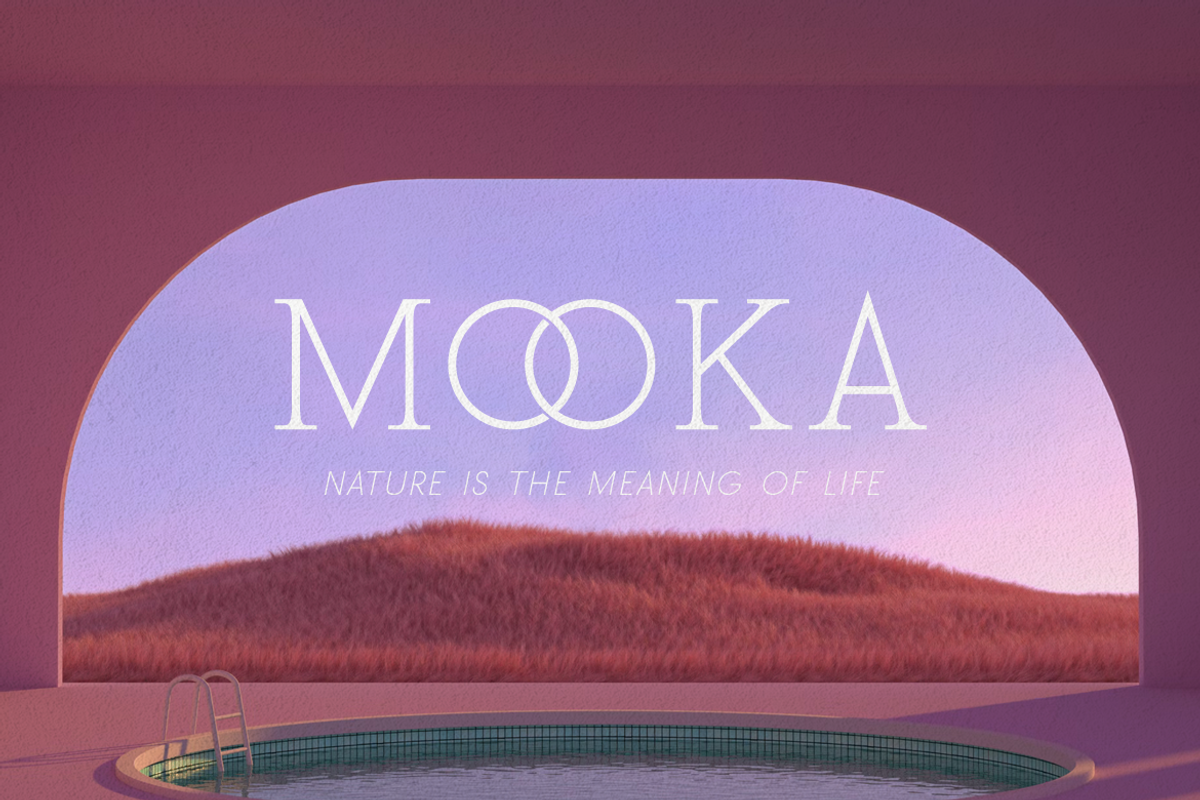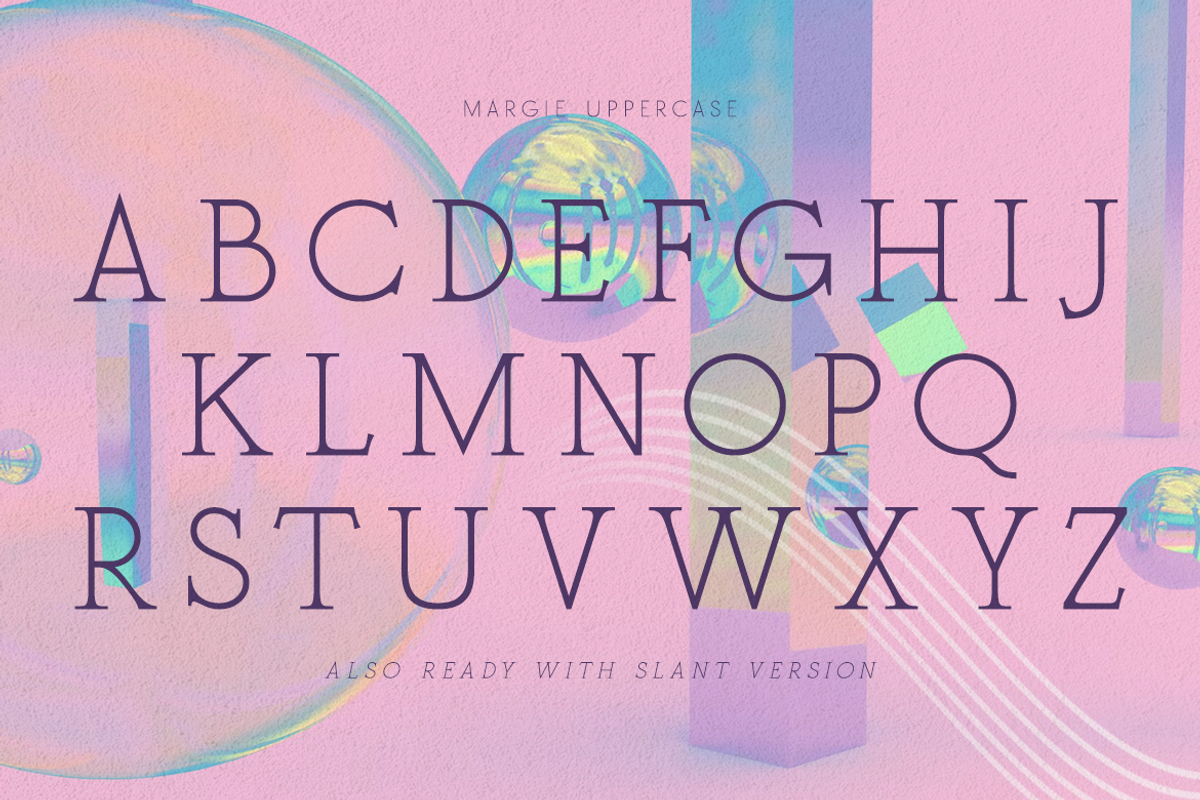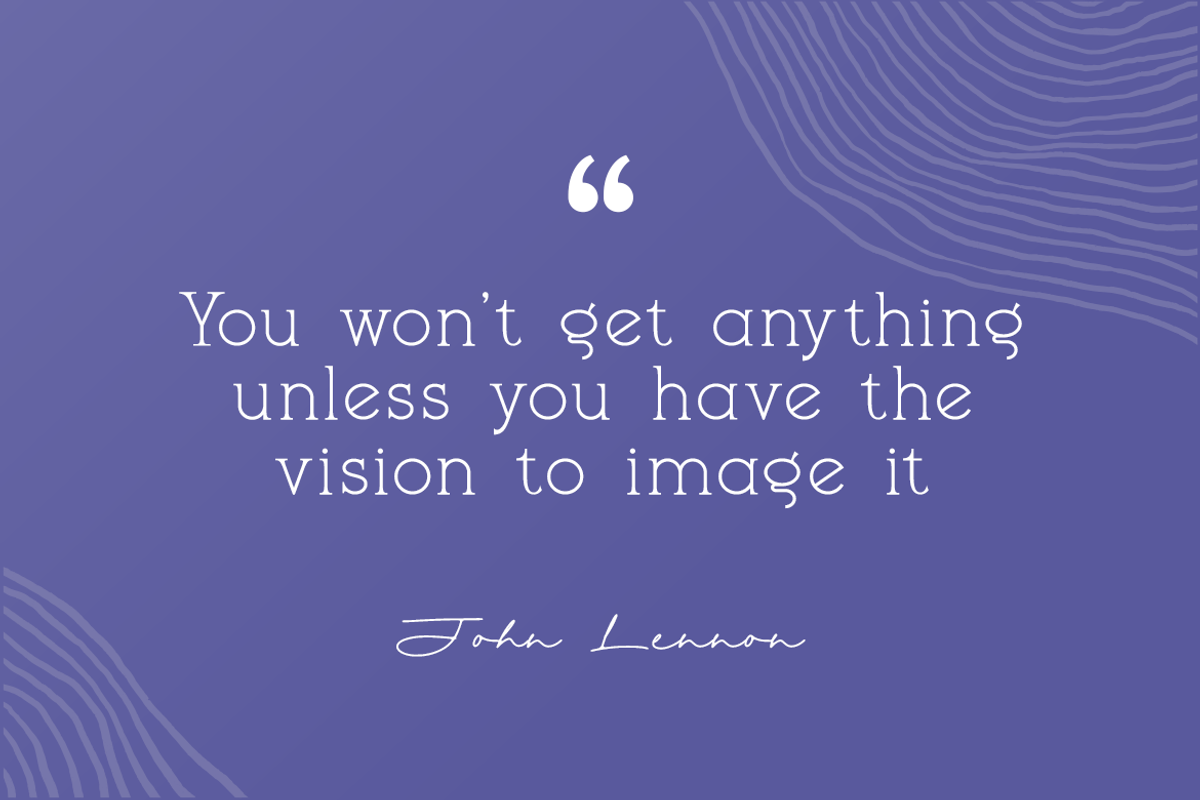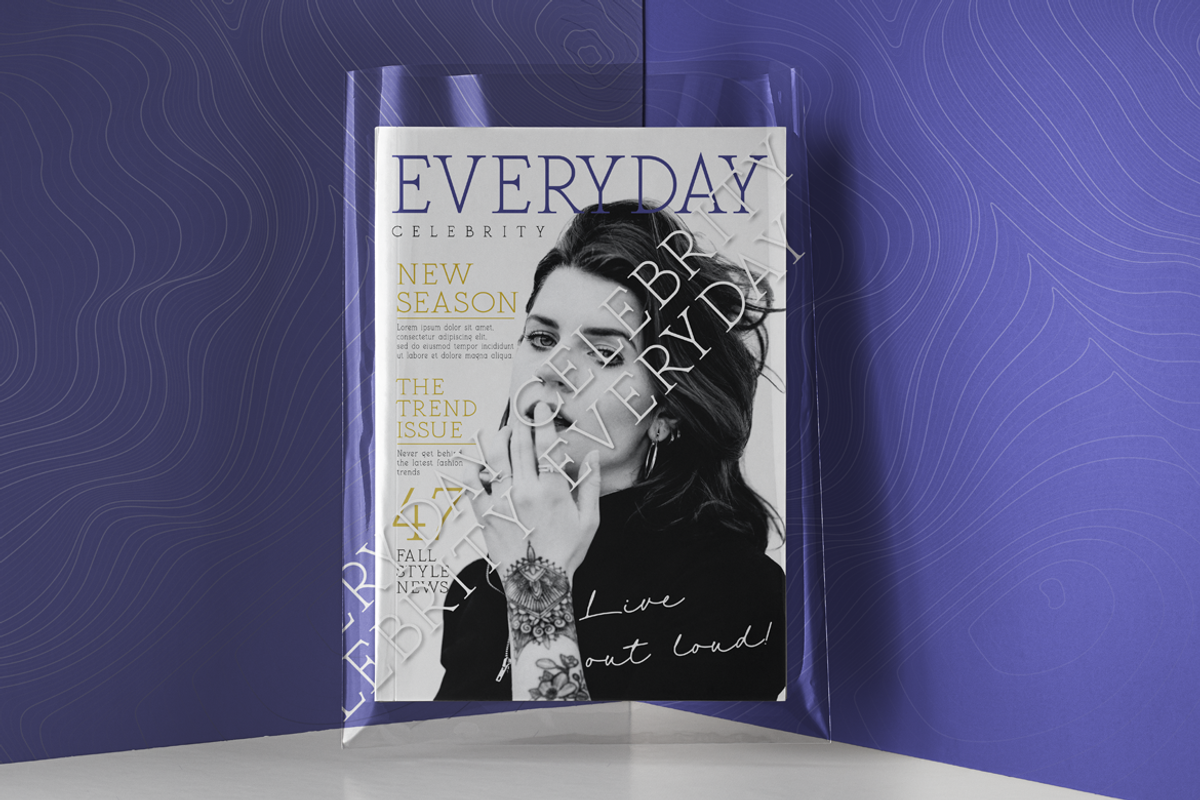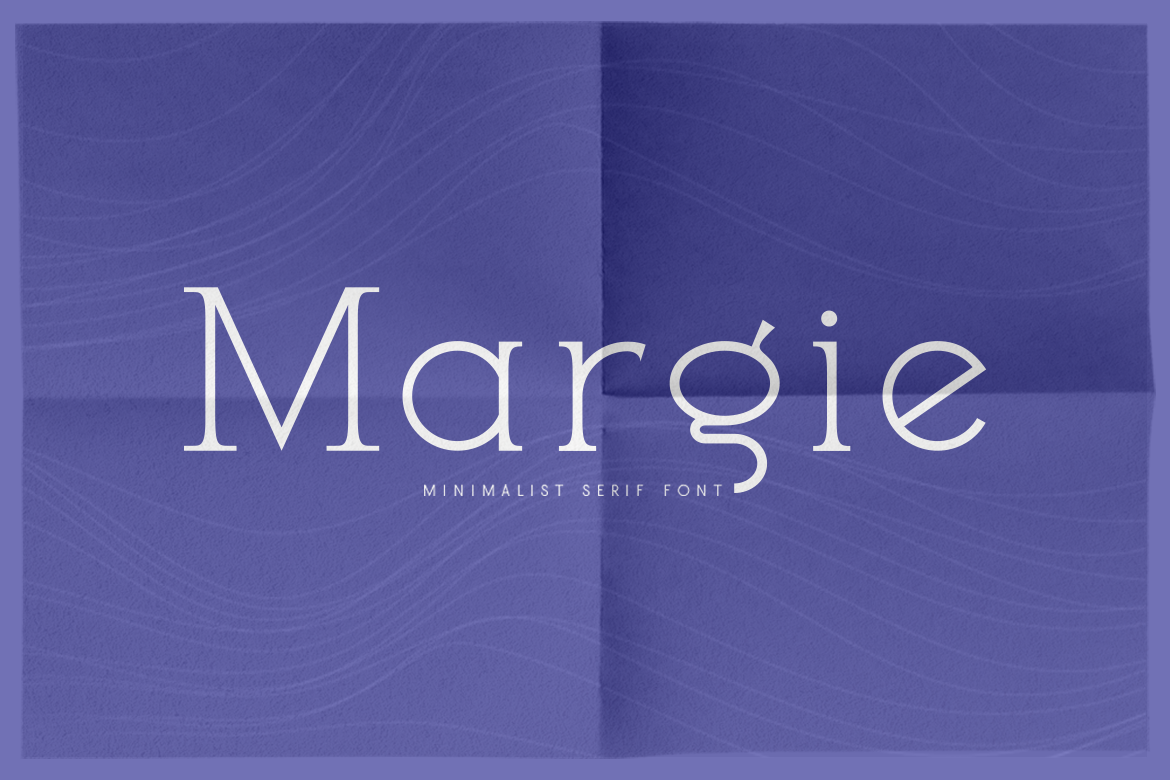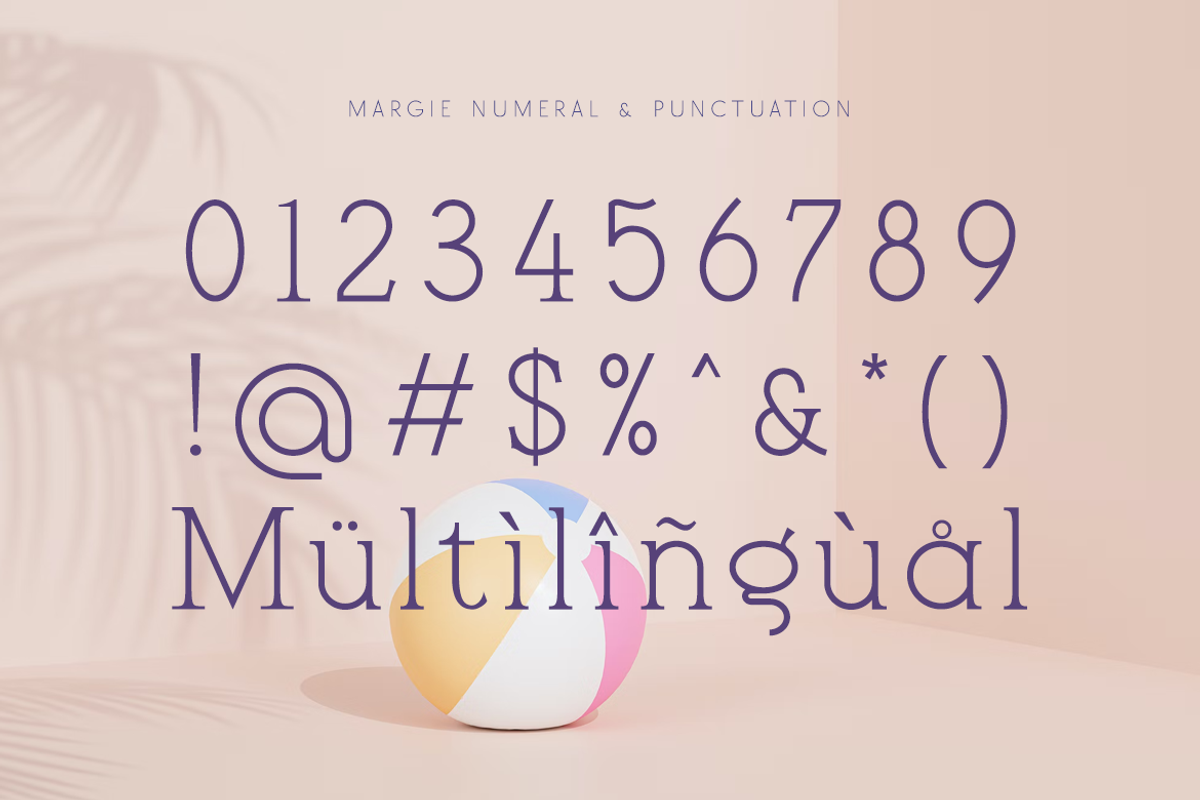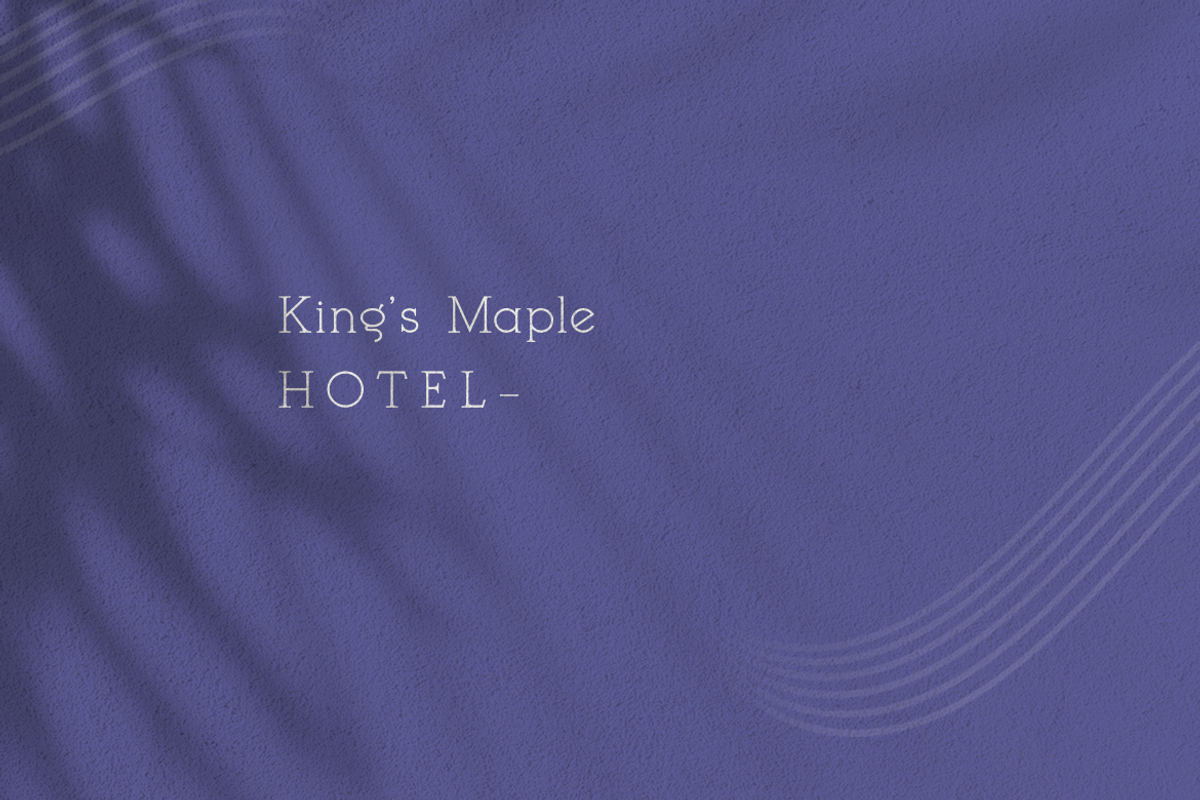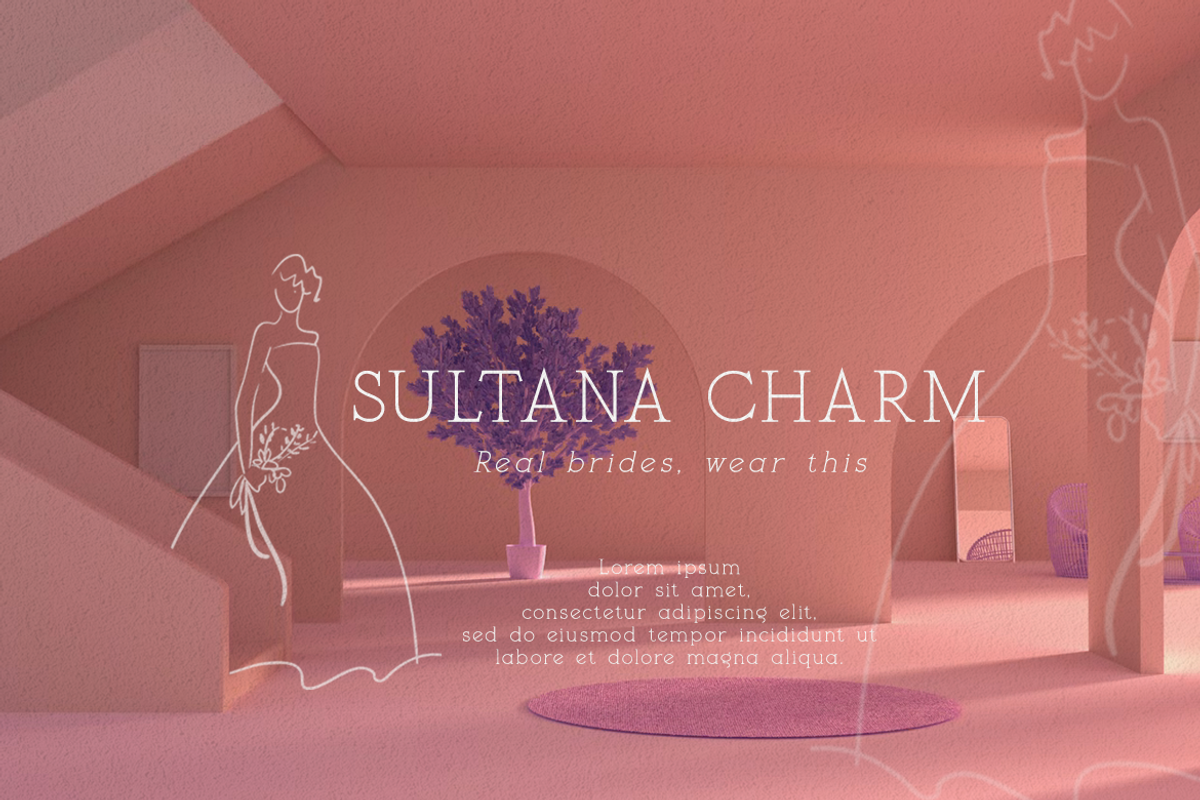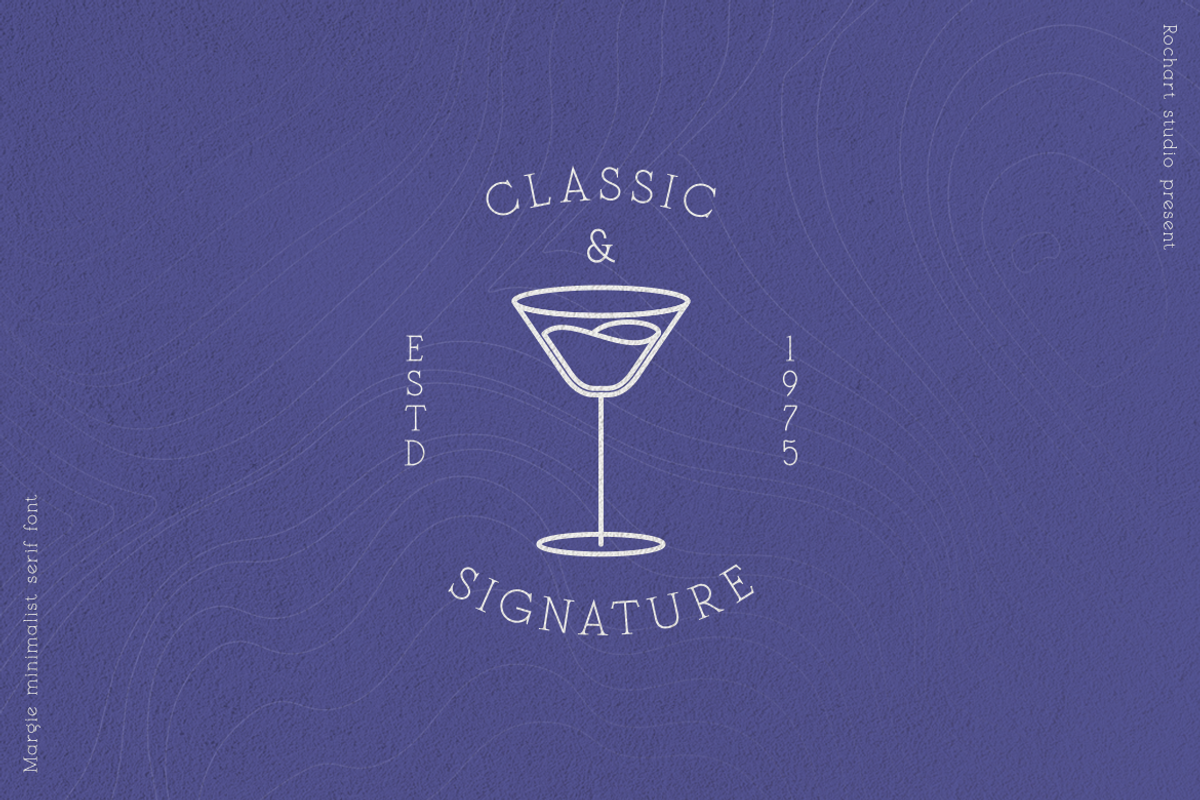
Margie Serif Font
Give your designs an classy feel. "Margie" is perfectly suited to stationery, logo, typography quotes, magazine or book cover, website header, clothing, branding, packaging design and more. A minimalist serif font containing uppercase and lowercase characters, numerals, a large range of punctuation, International language and ligatures.